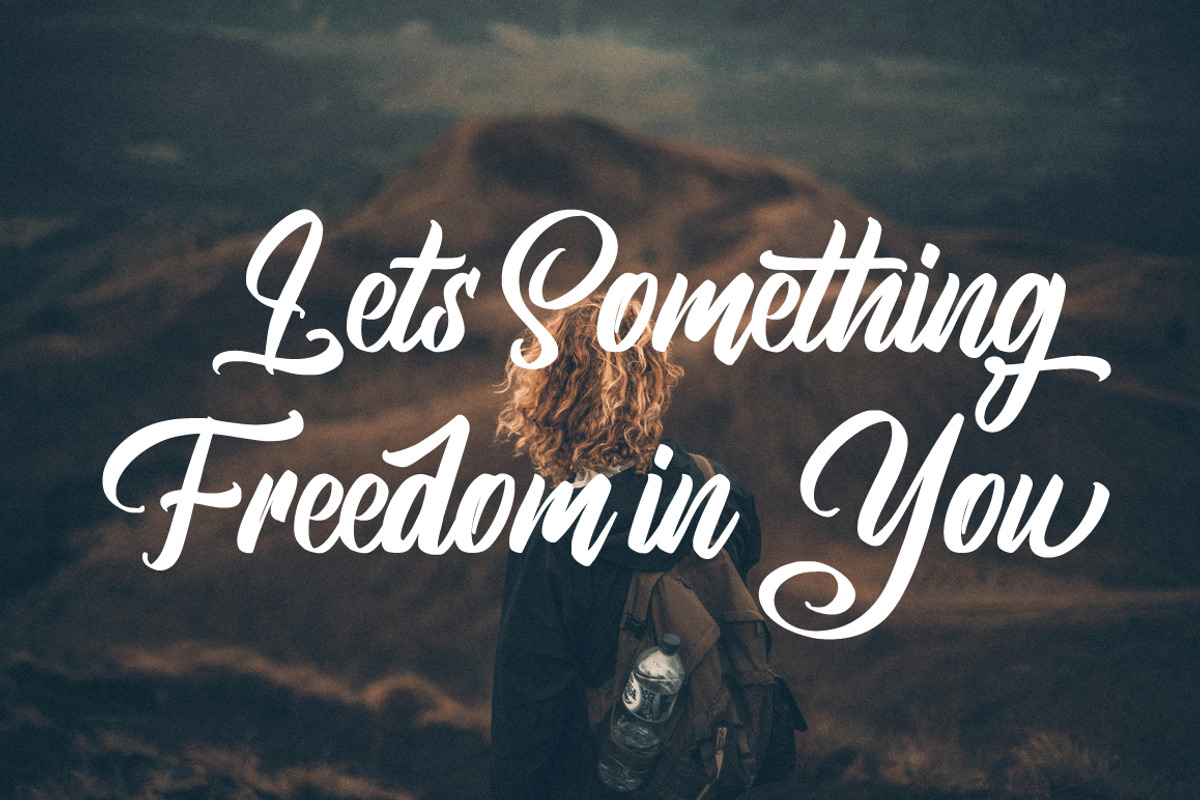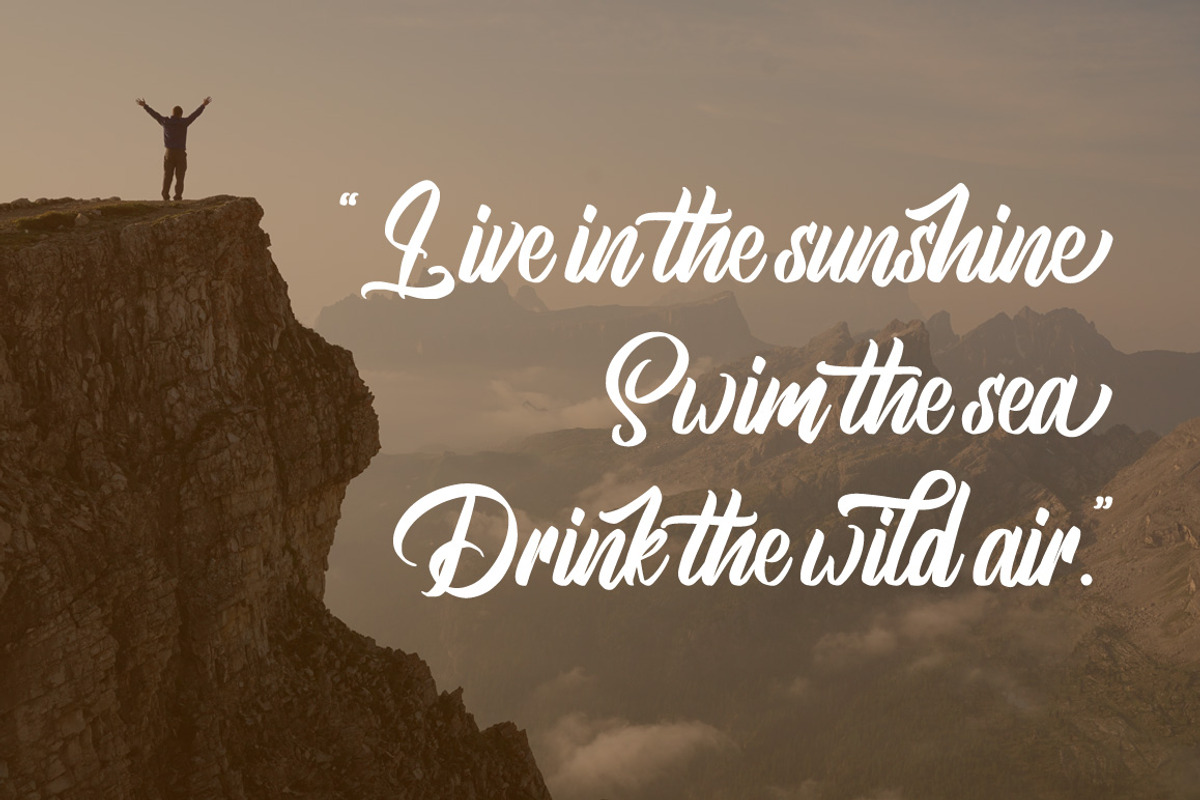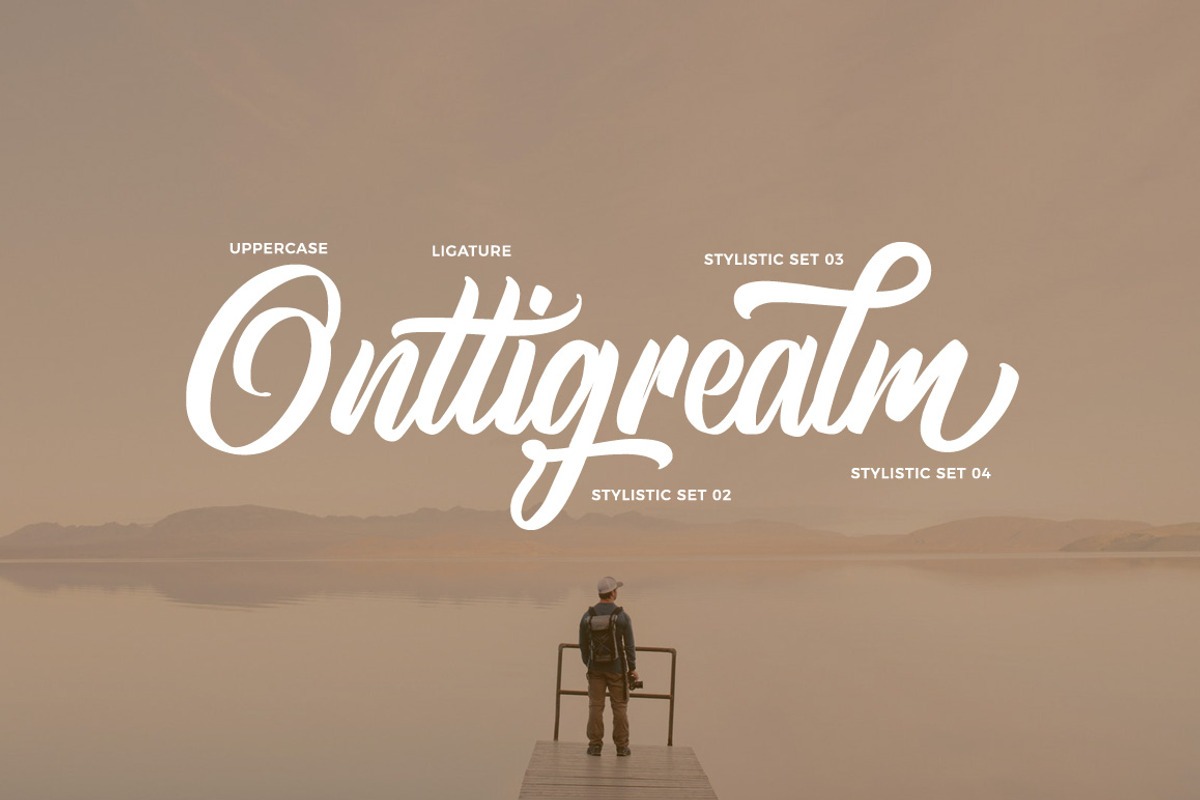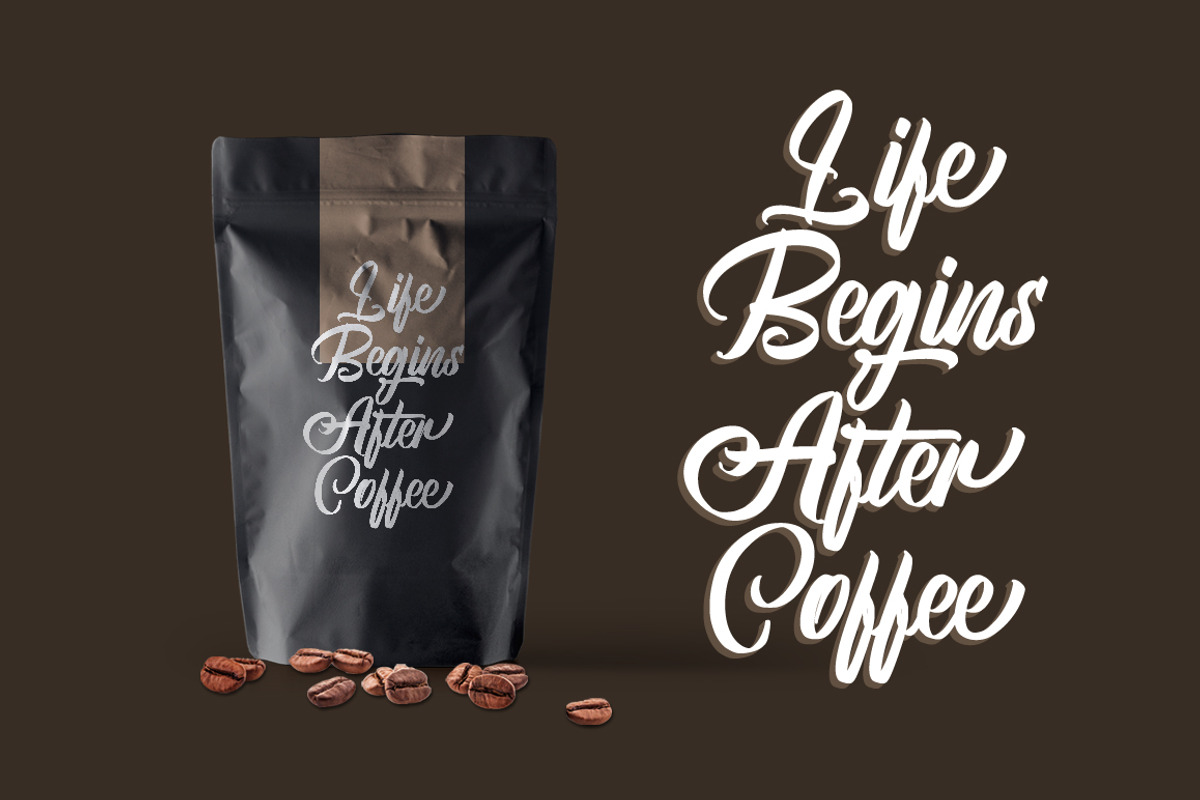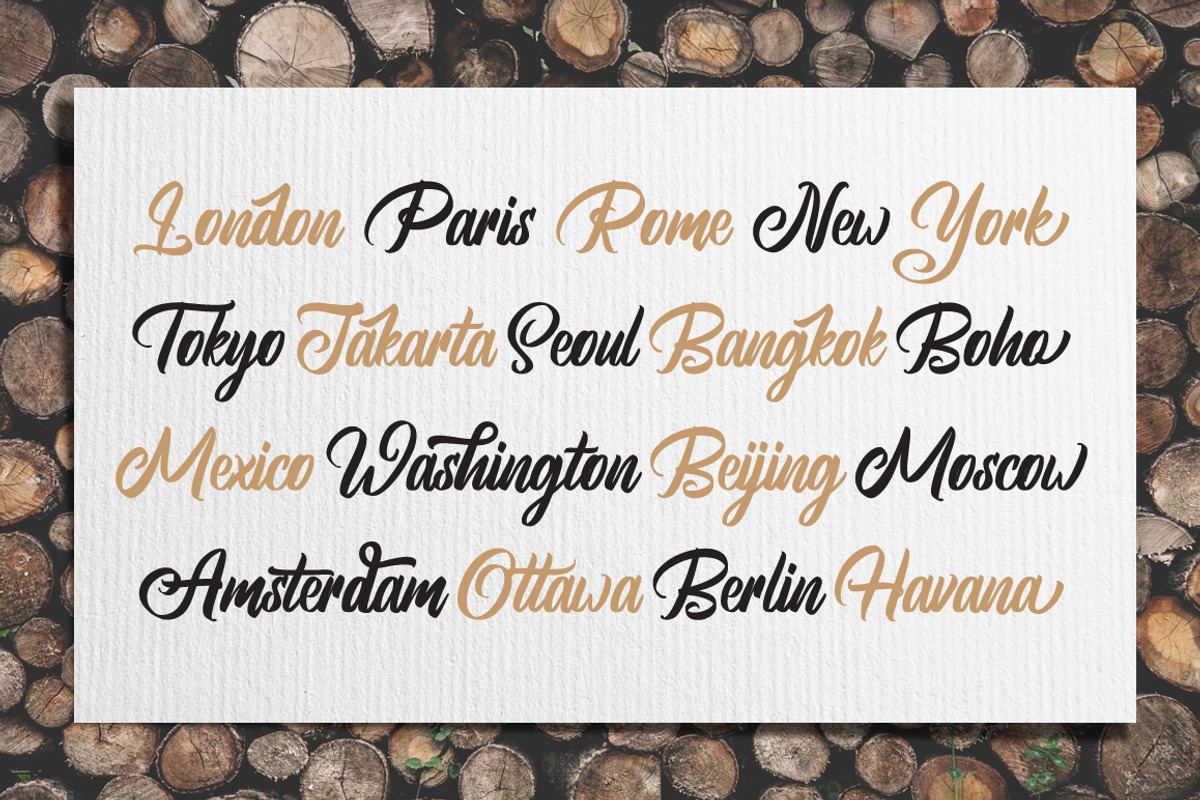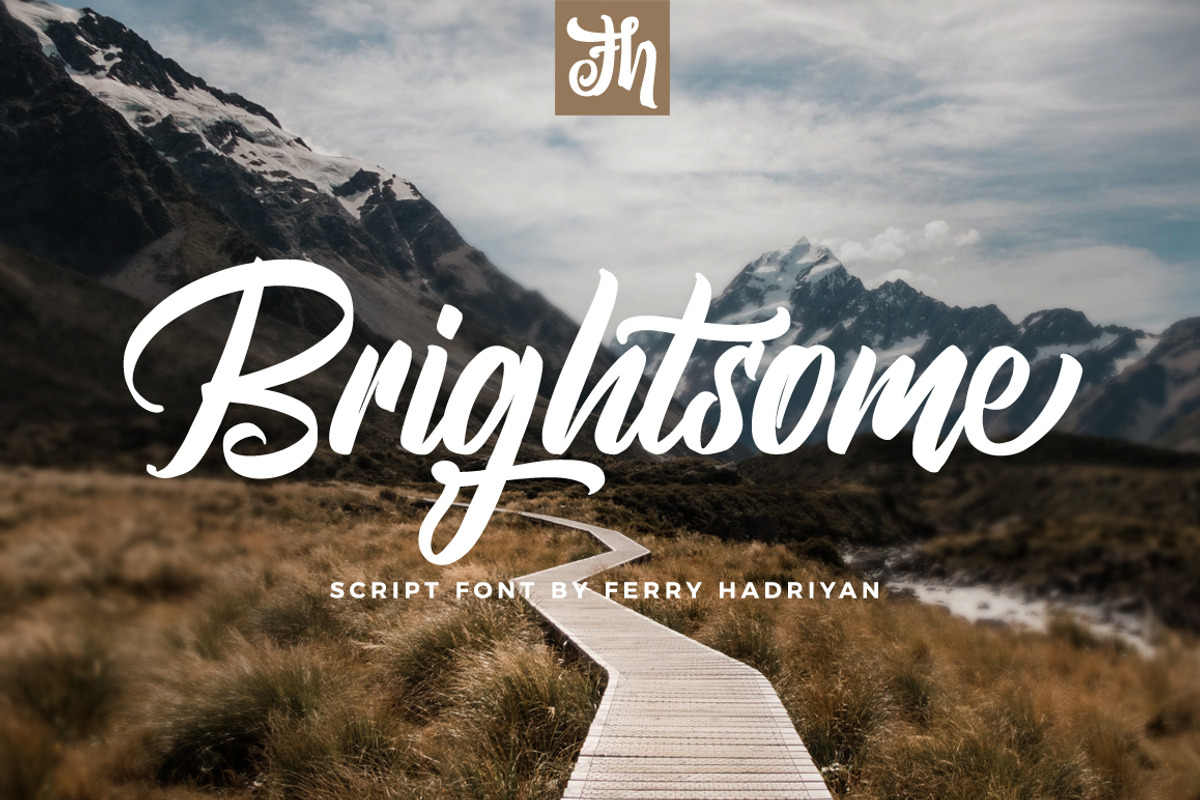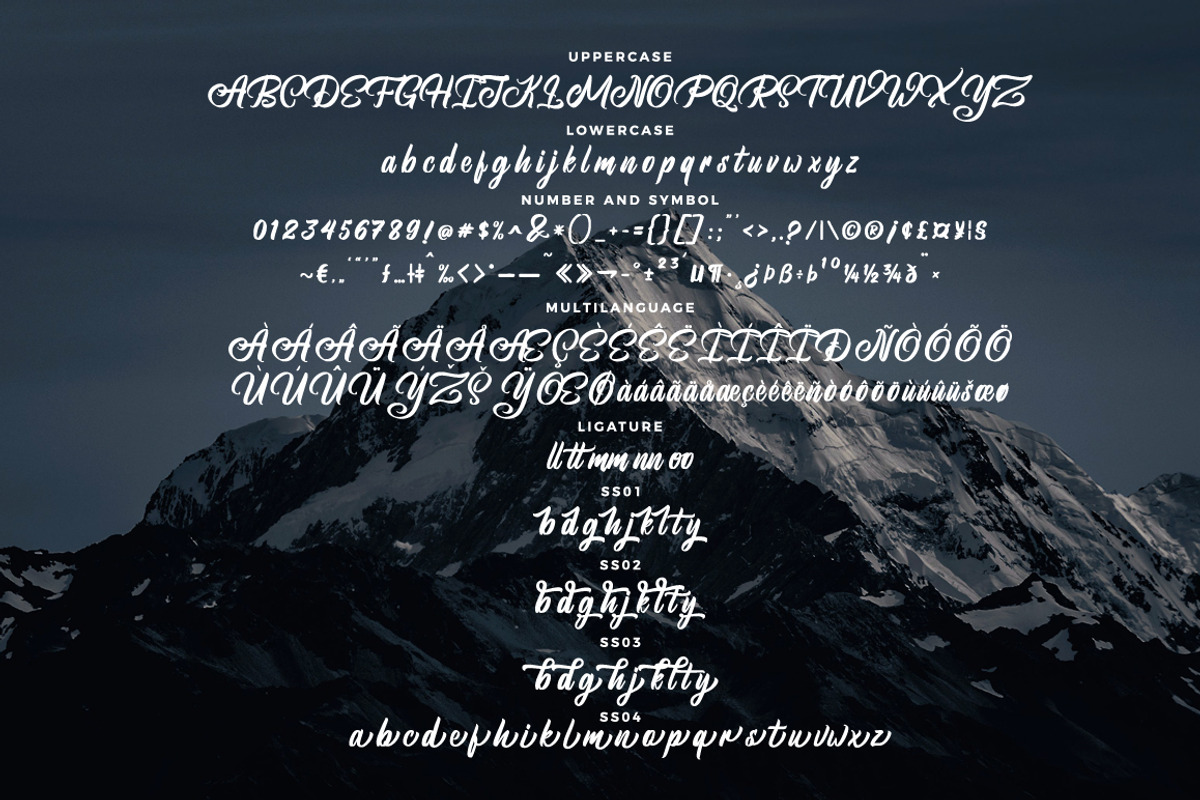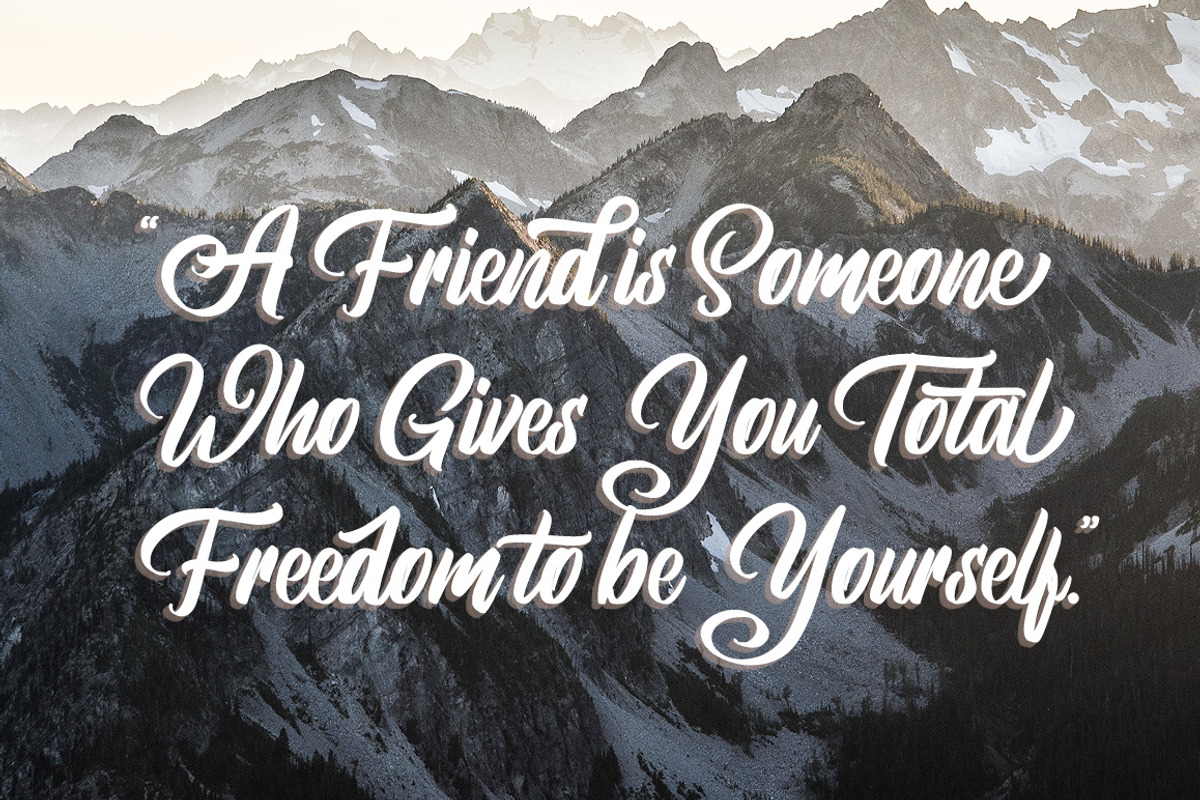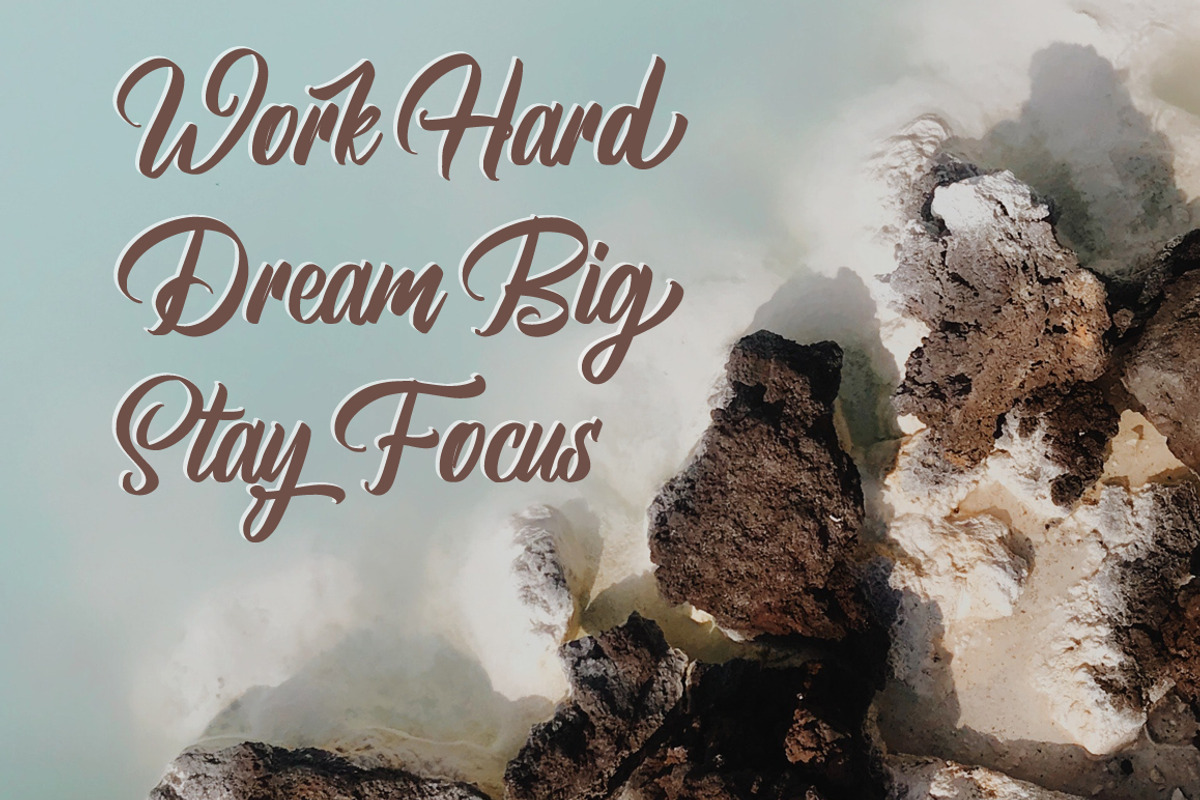
Brightsome - Script Font
Brightsome is Script Font with Handlettering Brush Style, with opentype feature include of the font. Suitable for design, element design, wedding, event, t-shirt, logo, badges, sticker, and awesome work, etc...
Feauture Of The Font:
Open Type Features Fonts
Unique style fonts